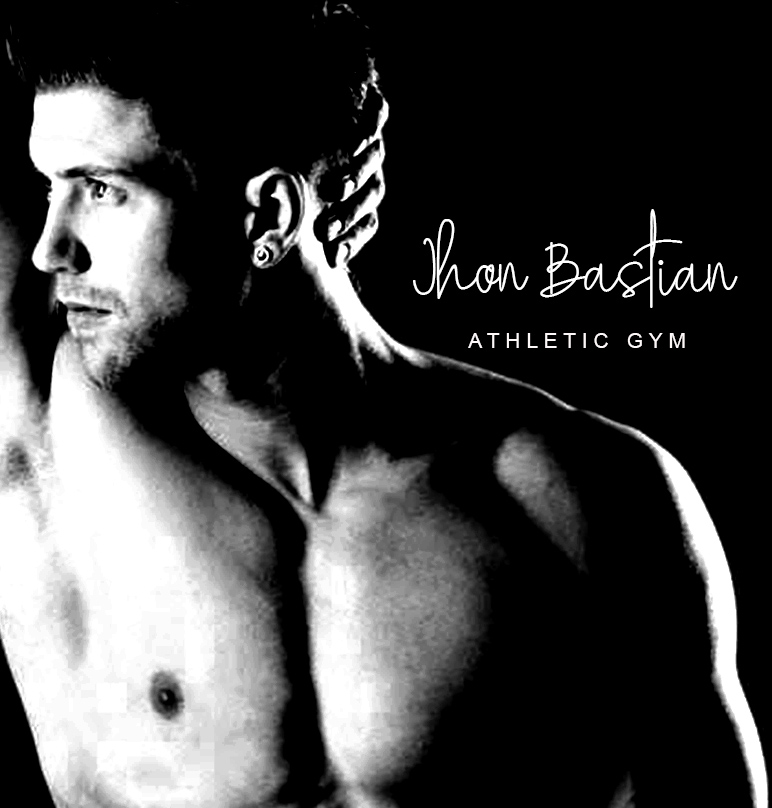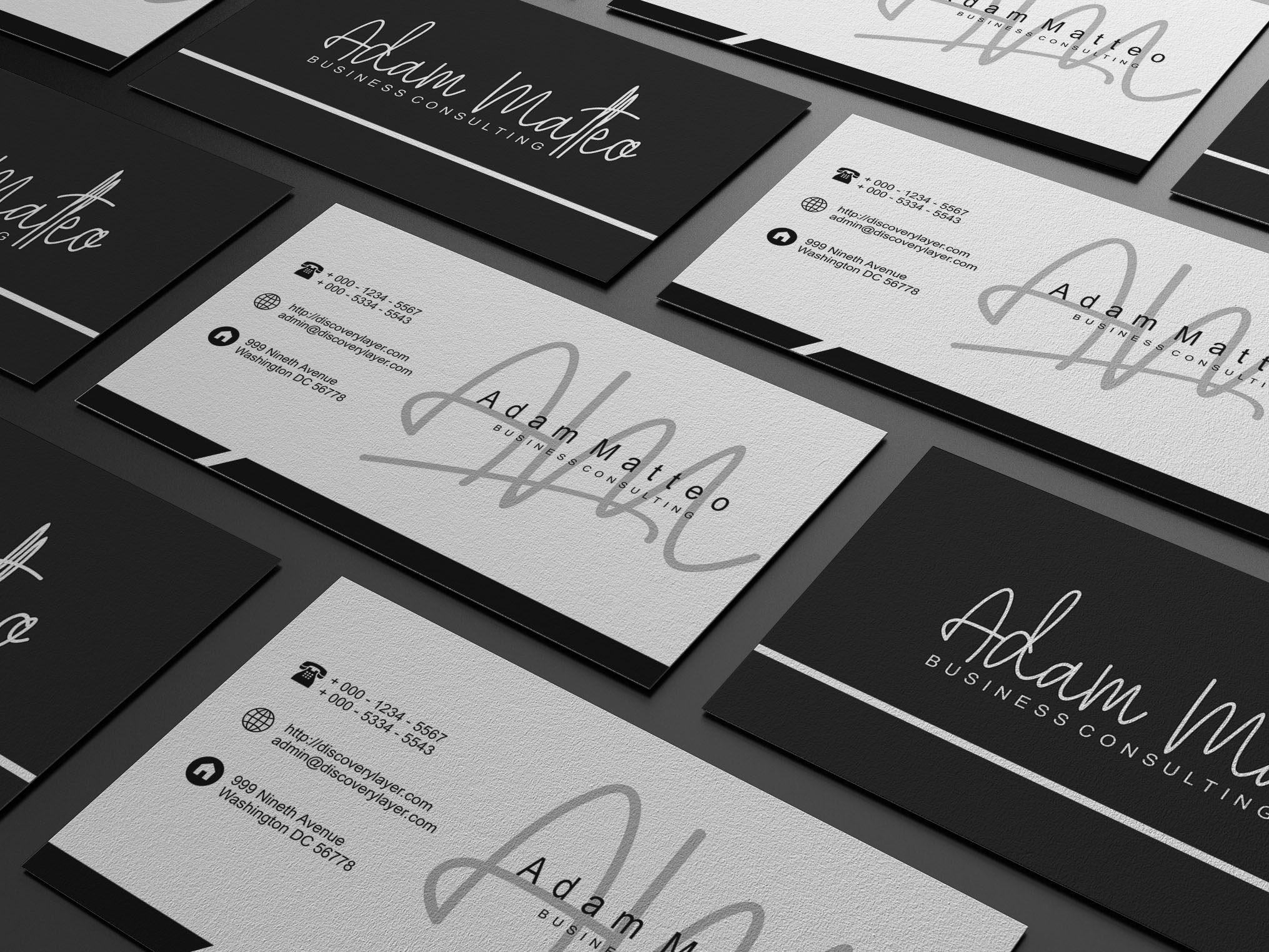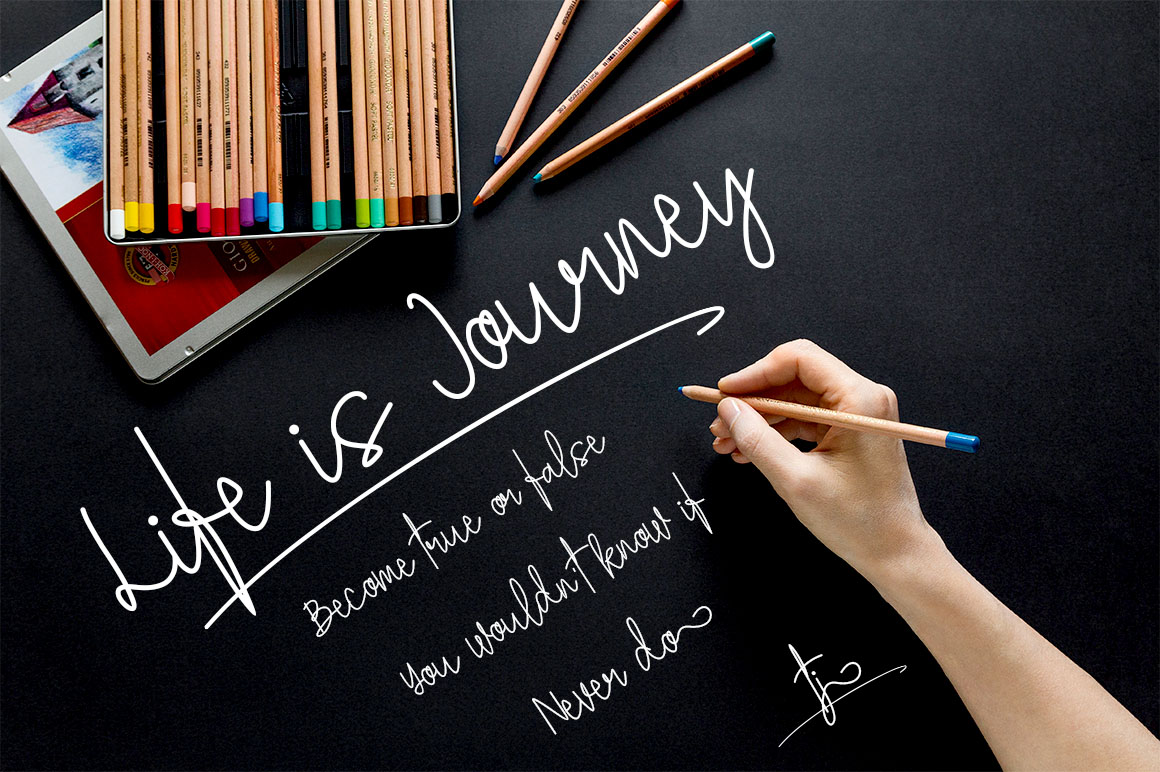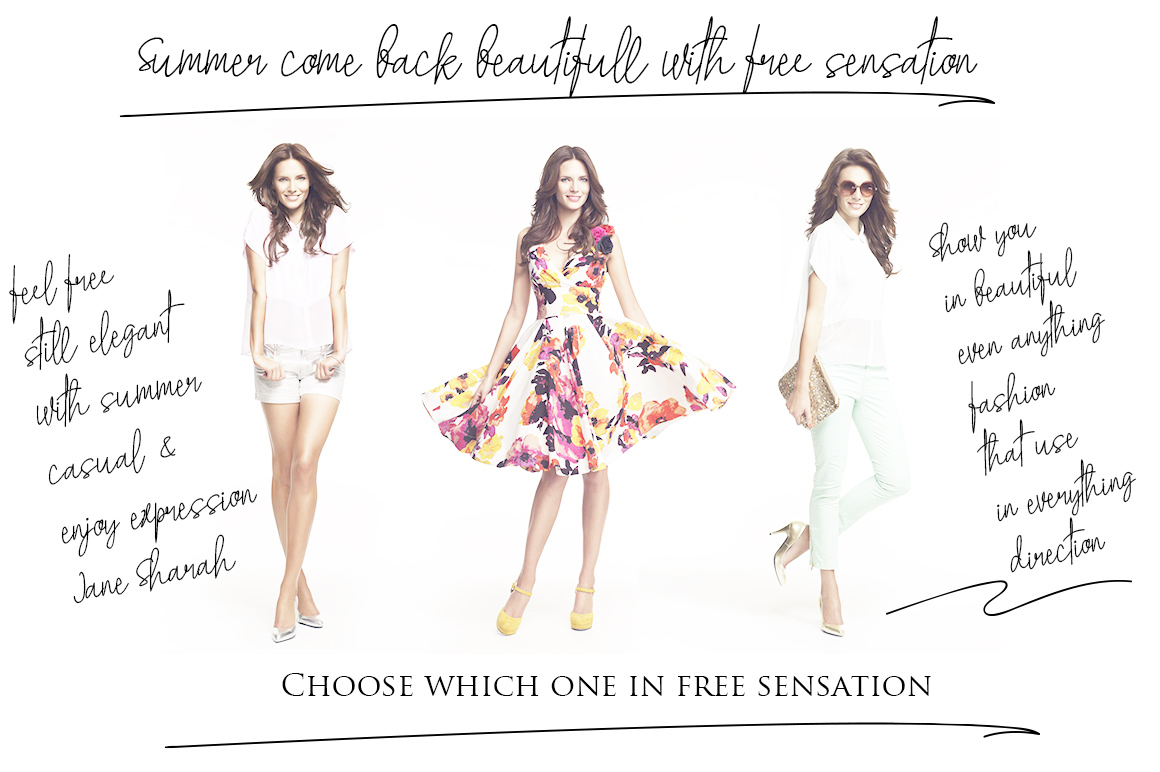
The Stylistic Sign Font
About The Stylistic Sign Font
Stylistic Sign is a stunning handwritten signature font. This monoline font has a feminine look and comes in 2 styles: Regular & Italic.